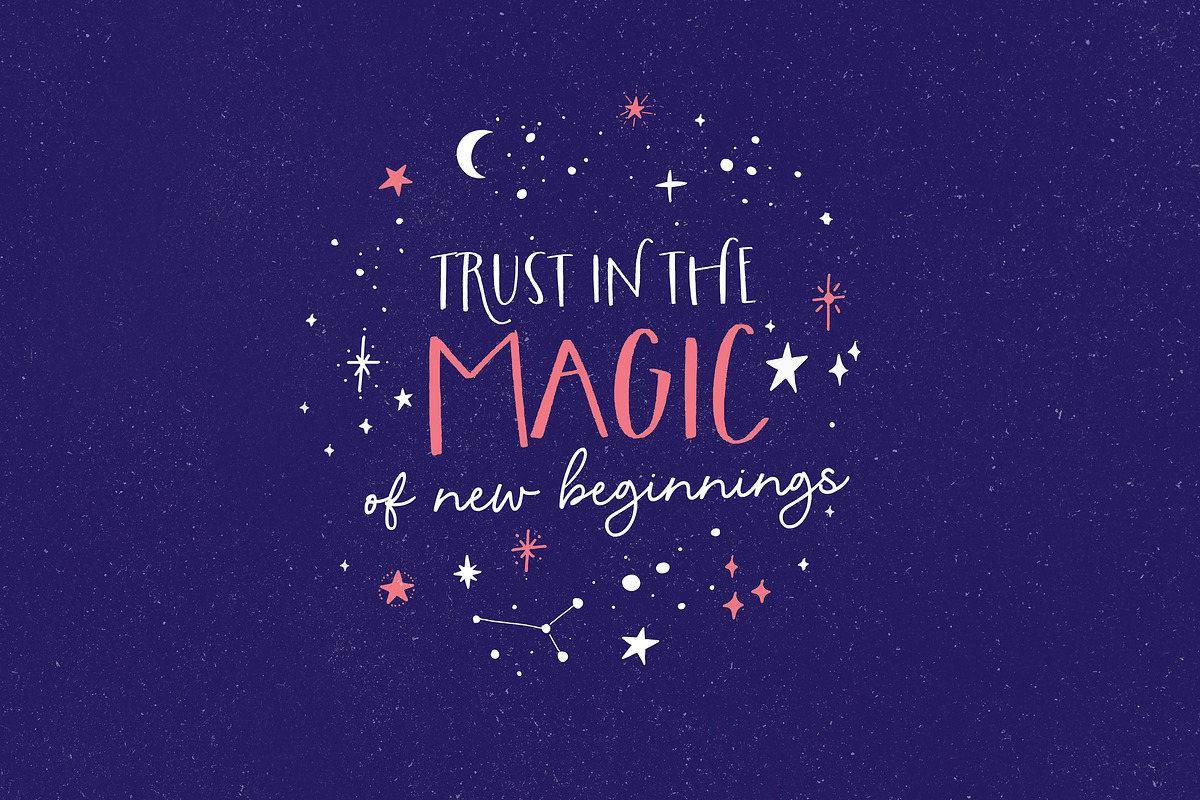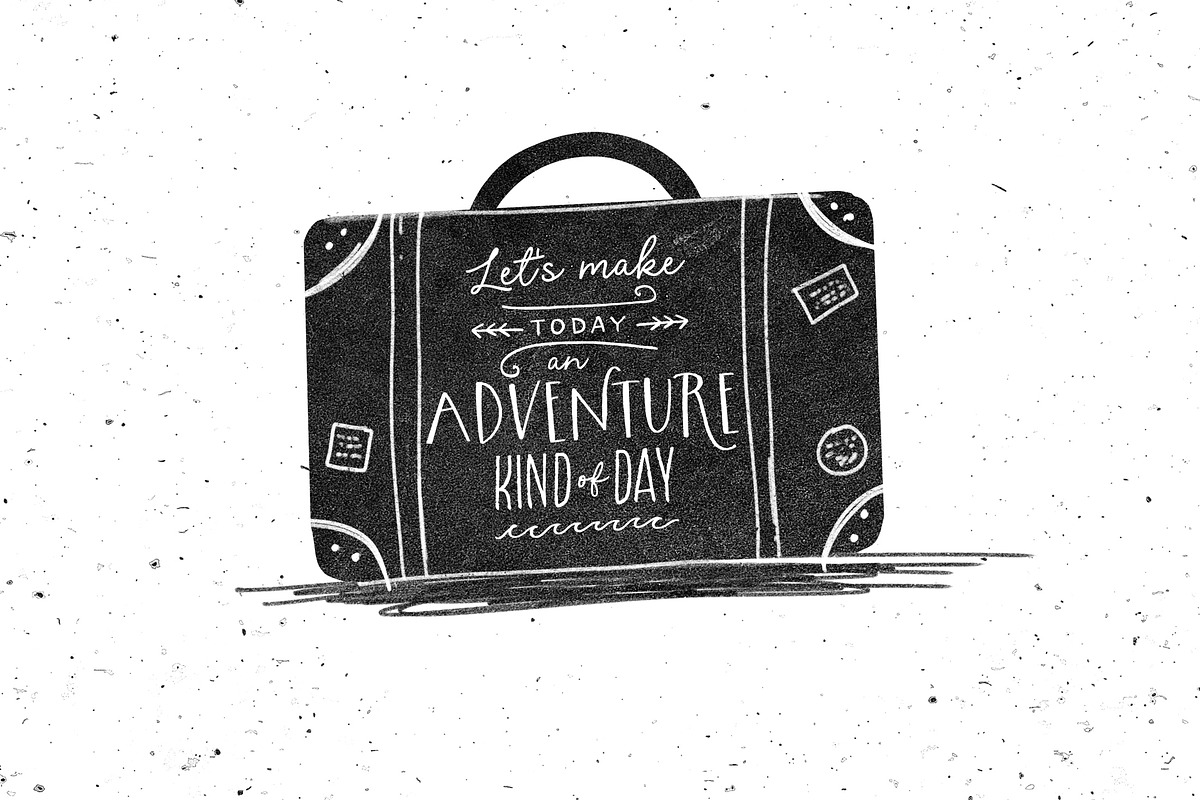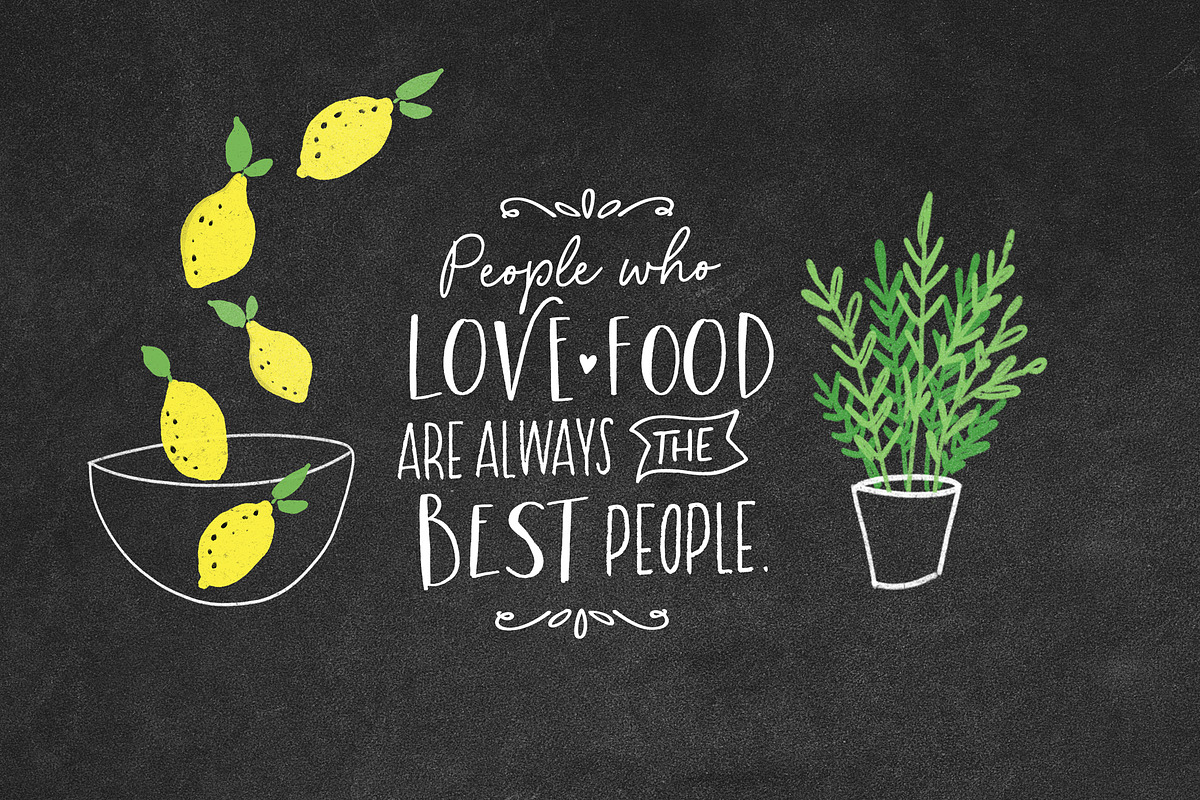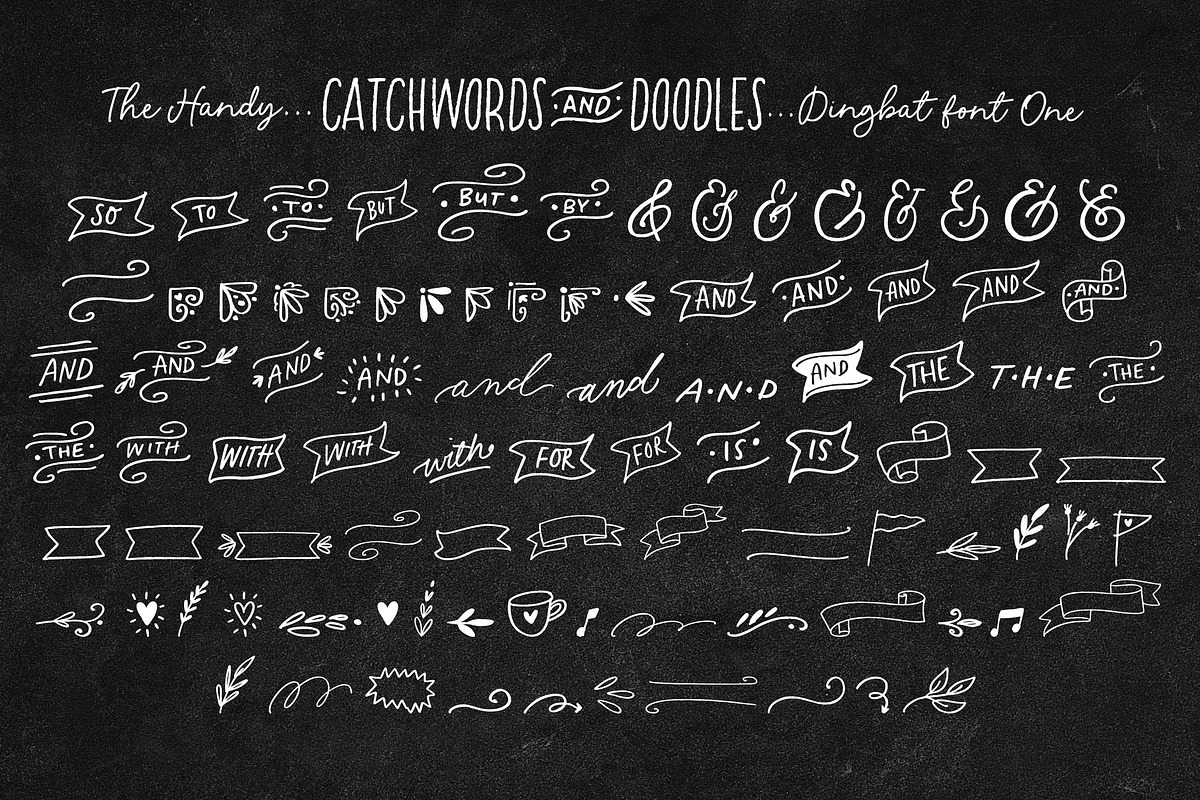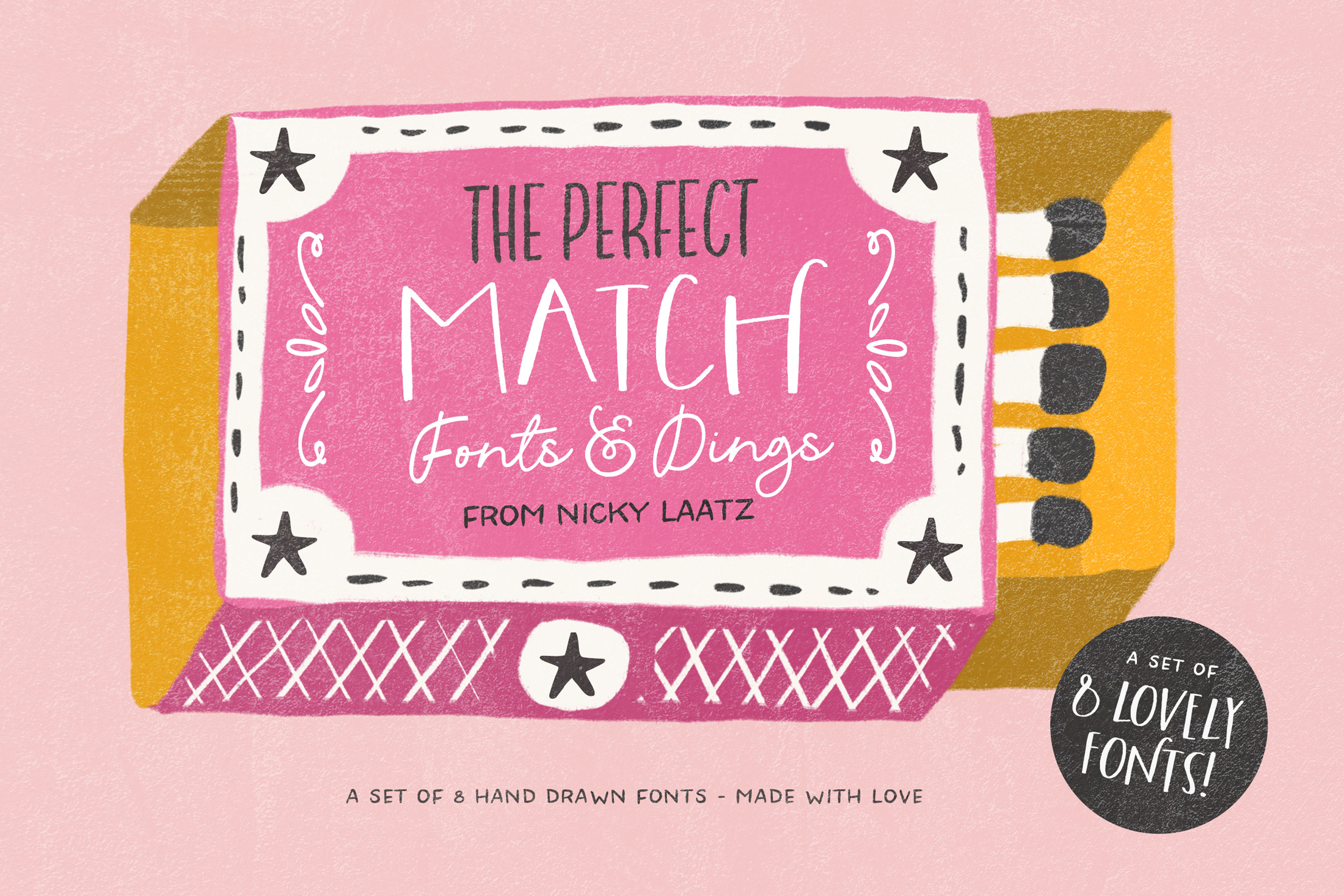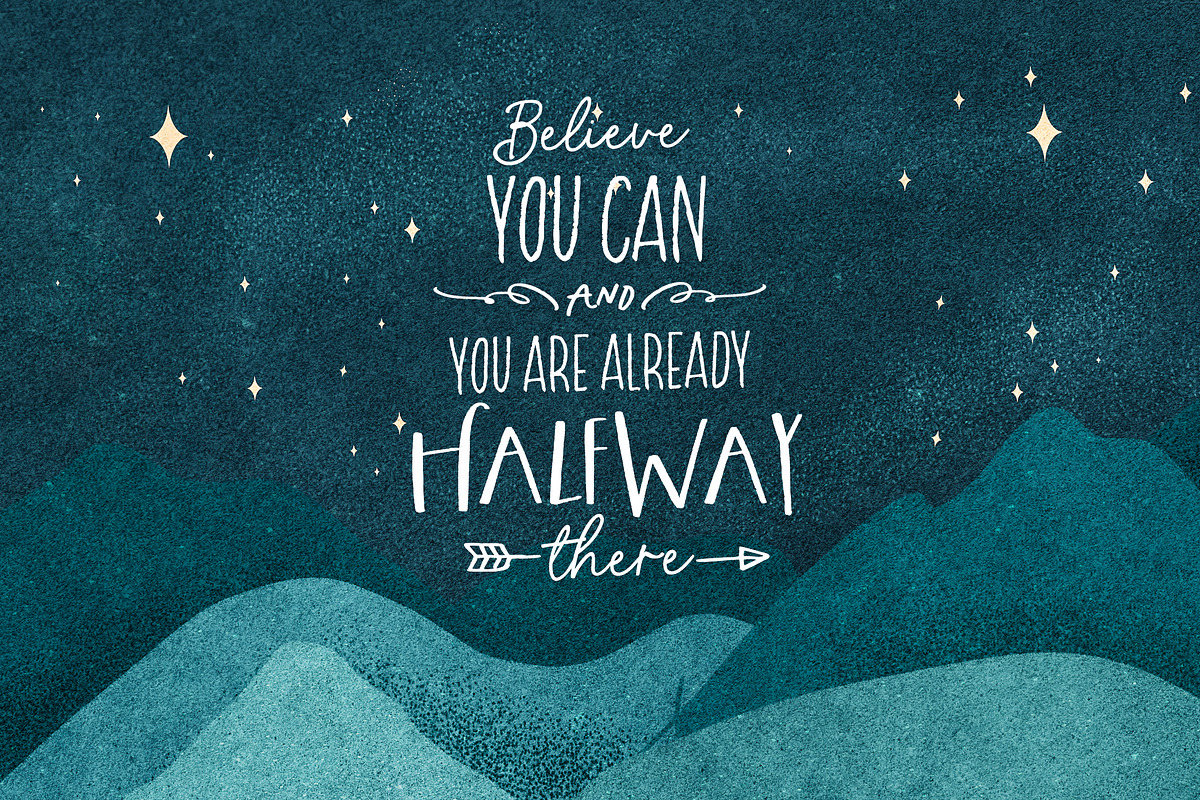
The Perfect Match Fonts and Dings
Say hello to "The Perfect Match" Font set! 4 lovingly hand-drawn fonts made to complement each other perfectly in your type designs. Perfect for quote designs, quaint logos, clever packaging, sign boards,greeting cards, merchandise designs and so much more!
Also included is 2 extra 'Dingbat' fonts - packed full of cute little hand doodle extras - to really make your designs come together beautifully!